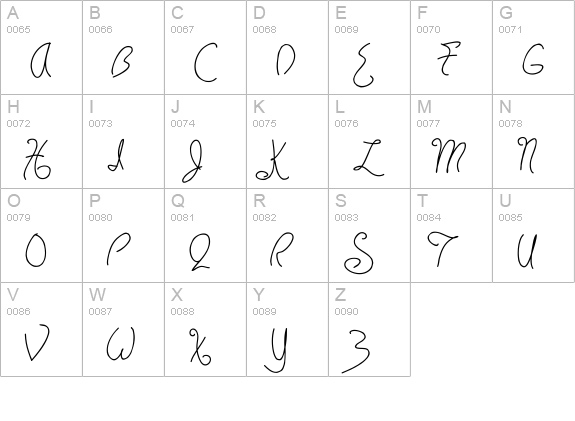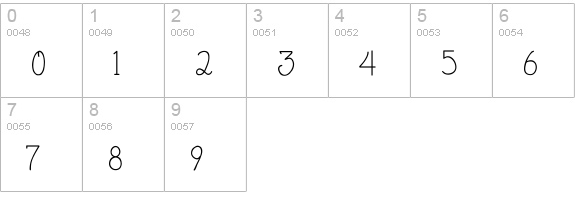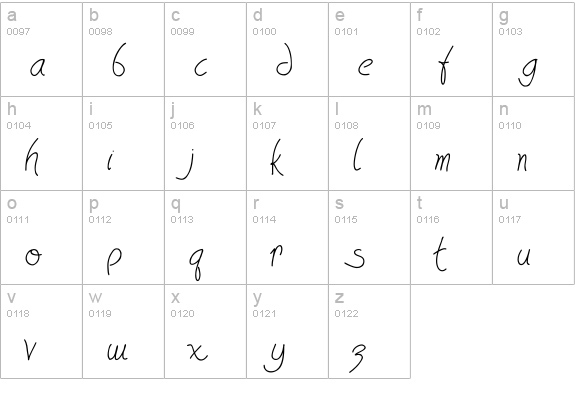
HavingWrit Font Details
HavingWrit font is a stunning typeface that beautifully combines elegance and modernity. Its graceful curves and refined letterforms make it a perfect choice for a wide range of design projects, from branding and advertising to editorial and web design. The font exudes a sense of sophistication and professionalism, while also maintaining a touch of individuality and personality. One of the standout features of HavingWrit font is its versatility. It can effortlessly adapt to various design styles and contexts, whether it be a luxurious fashion magazine or a minimalist website. With its wide range of weights and styles, this font offers endless possibilities for creative expression. But what truly sets HavingWrit font apart is the fact that it is free. Yes, you read that right. This remarkable font is freely available to download at FontsMarket.com, making it accessible to everyone, regardless of budget or resources. This means that designers, creatives, and enthusiasts alike can enjoy the beauty and functionality of HavingWrit font without any restrictions. Furthermore, HavingWrit font is not just visually appealing, but also highly legible. Its clean and well-defined letterforms ensure an enjoyable reading experience, whether it's on a screen or in print. This makes it an excellent choice for body text, headlines, and everything in between. In conclusion, HavingWrit font is a must-have in any designer's toolkit. Its combination of elegance, versatility, and free availability make it a truly exceptional typeface. So why wait? Head over to FontsMarket.com and download HavingWrit font today to elevate your designs to new heights.